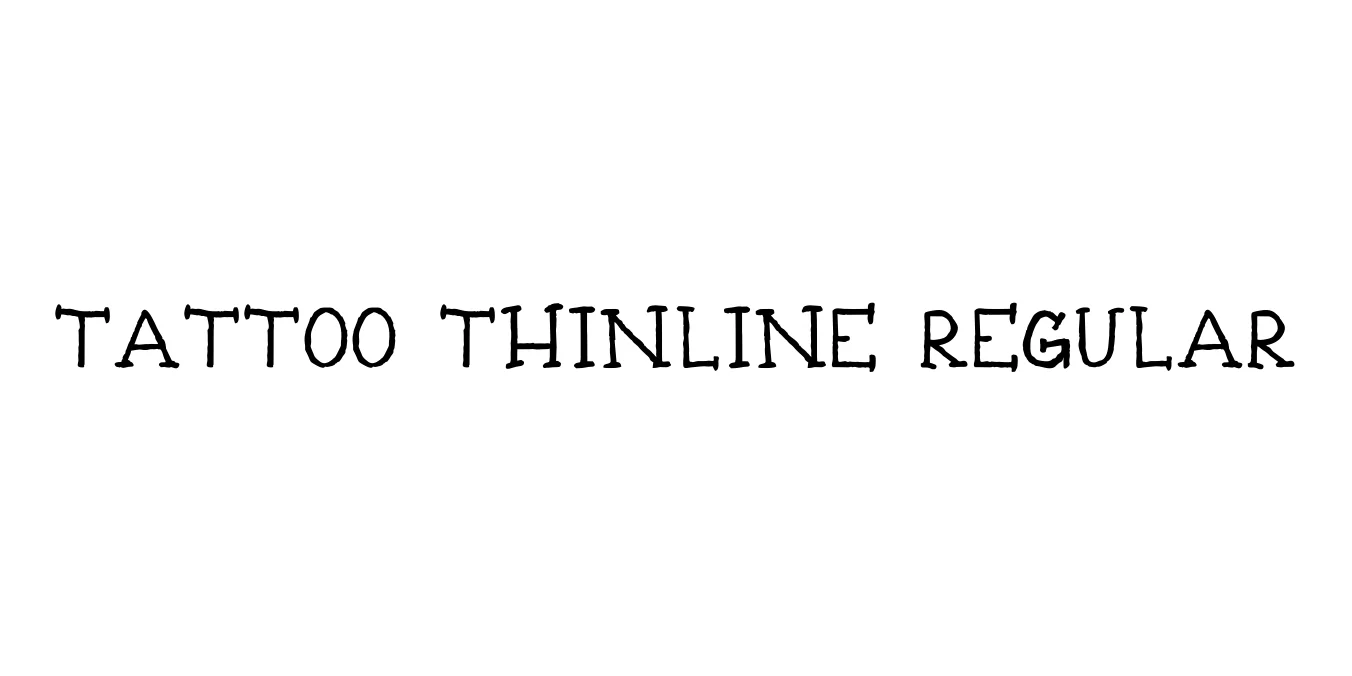
Tattoo Thinline Regular
Designed by Studio Typo
Tattoo Thinline Regular is a contemporary take on classic tattoo artistry, stripping away the heavy shading and bold outlines of traditional "Old School" flash. This typeface focuses on the minimalist aesthetic that has gained popularity in modern fine-line tattooing, offering a clean and sophisticated look that remains legible even at smaller sizes.
The font's structure is built upon uniform stroke weights and graceful curves, making it ideal for designs that require a touch of rebellion tempered with elegance. Whether used for digital mockups or print media, Tattoo Thinline Regular provides a versatile tool for designers looking to evoke the personal and permanent feel of ink on skin without the visual weight of conventional decorative fonts.
Tattoo Thinline Regular Best Uses
Perfect for modern lifestyle brands and boutique tattoo studios.
Ideal for minimalist streetwear designs and custom graphic T-shirts.
Great for watermarks, digital overlays, and social media typography.
Suitable for creative magazine headers and artistic body text accents.